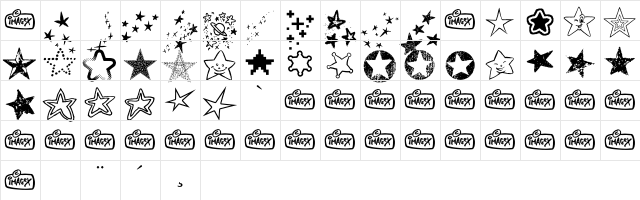
Starz Regular
Design Context for Starz Typeface
Starz is a composed and adaptable typeface that performs quietly and consistently across a wide range of design contexts.